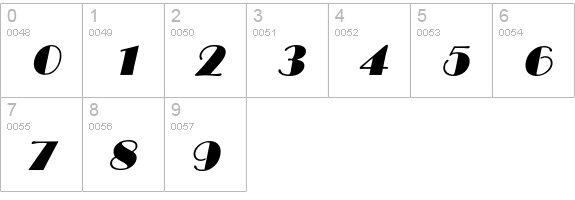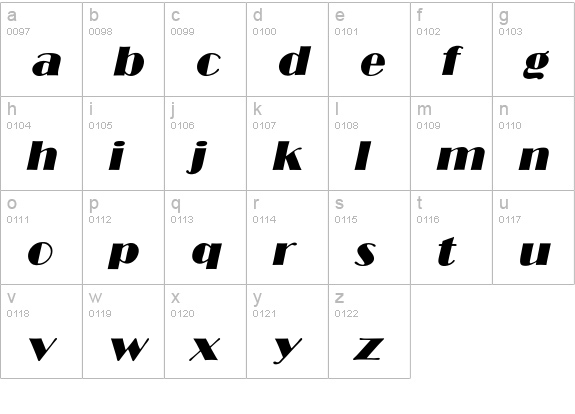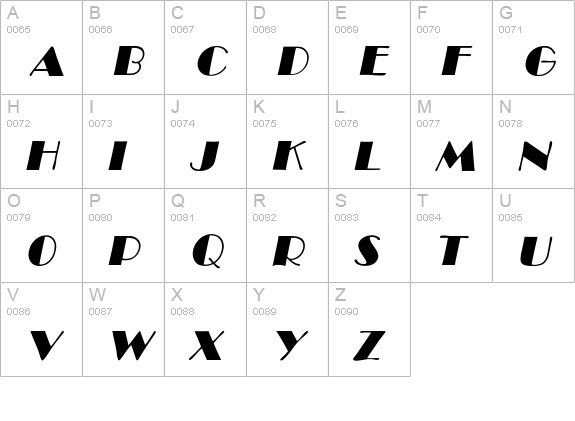
BroadwayItalic Font Details
BroadwayItalic font is a stylish and elegant typeface that exudes sophistication and charm. Its sleek, slanted design adds a touch of drama to any project, making it perfect for use in headings, titles, and logos. The italicized version of the classic Broadway font brings a modern twist to the timeless aesthetic, making it a versatile choice for both print and digital designs. What makes BroadwayItalic font even more appealing is that it is available for free download at FontsMarket.com. This means you can easily add this eye-catching font to your collection without any cost, making it a valuable resource for your creative projects. Whether you're designing posters, invitations, or branding materials, BroadwayItalic font is sure to make a bold statement and leave a lasting impression on your audience. Download it today and elevate your designs with this elegant and striking typeface.